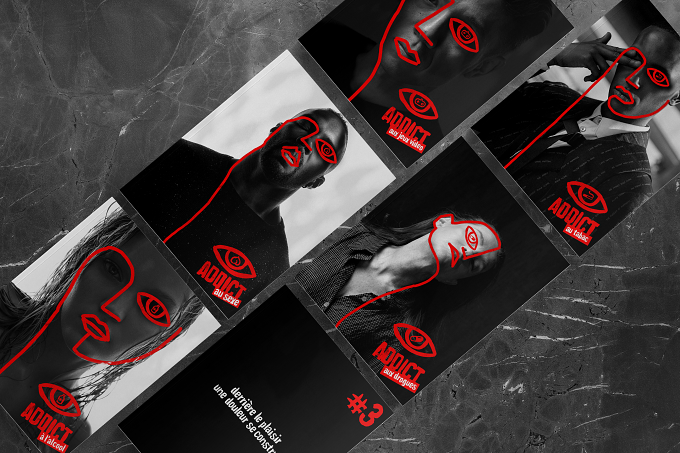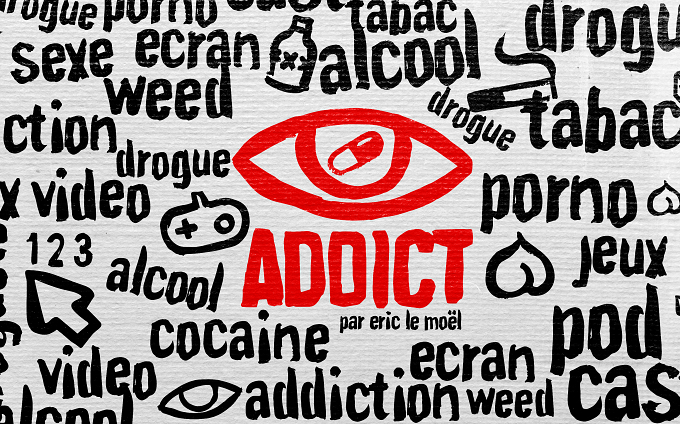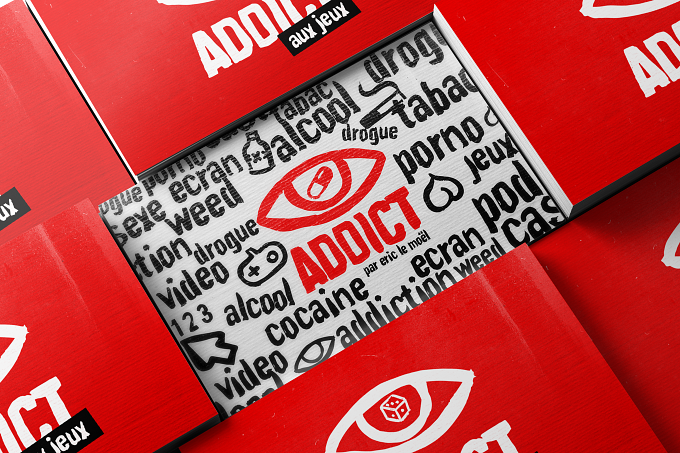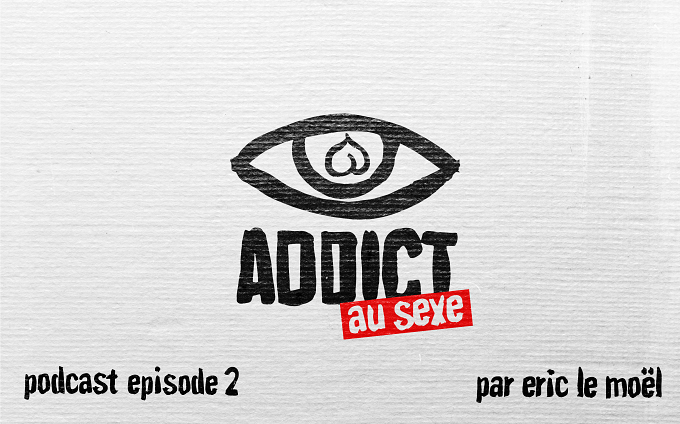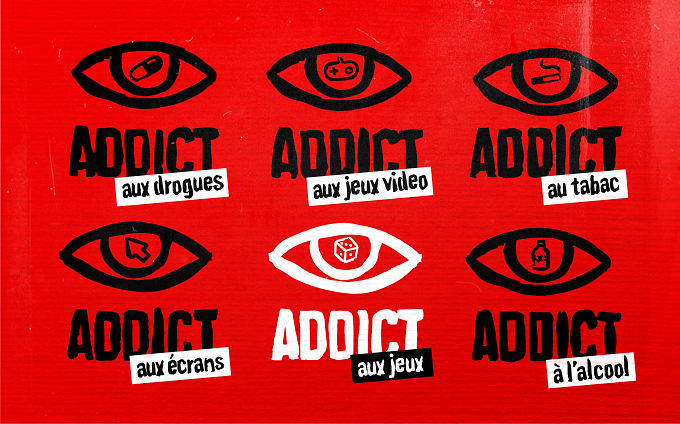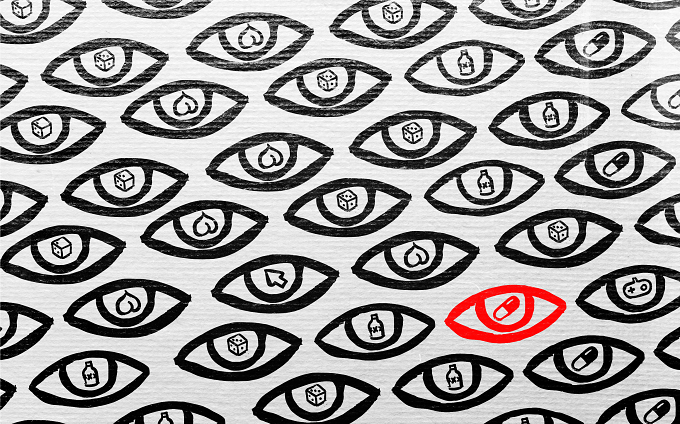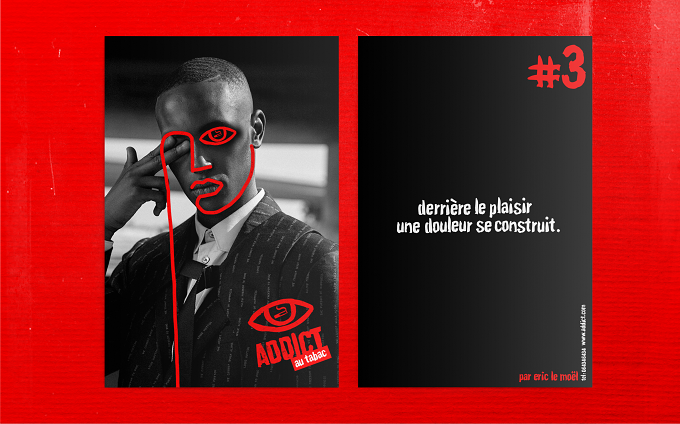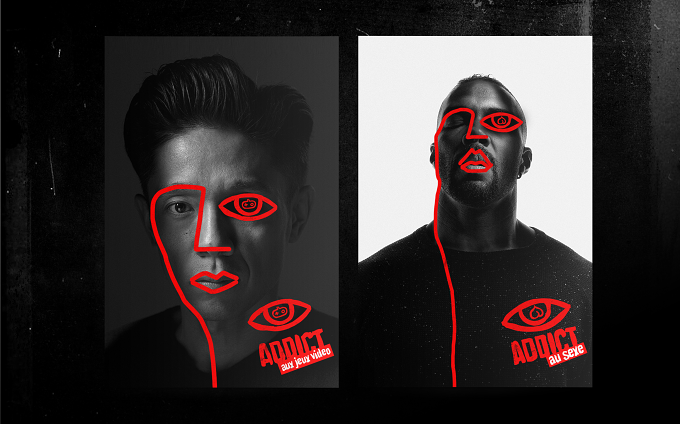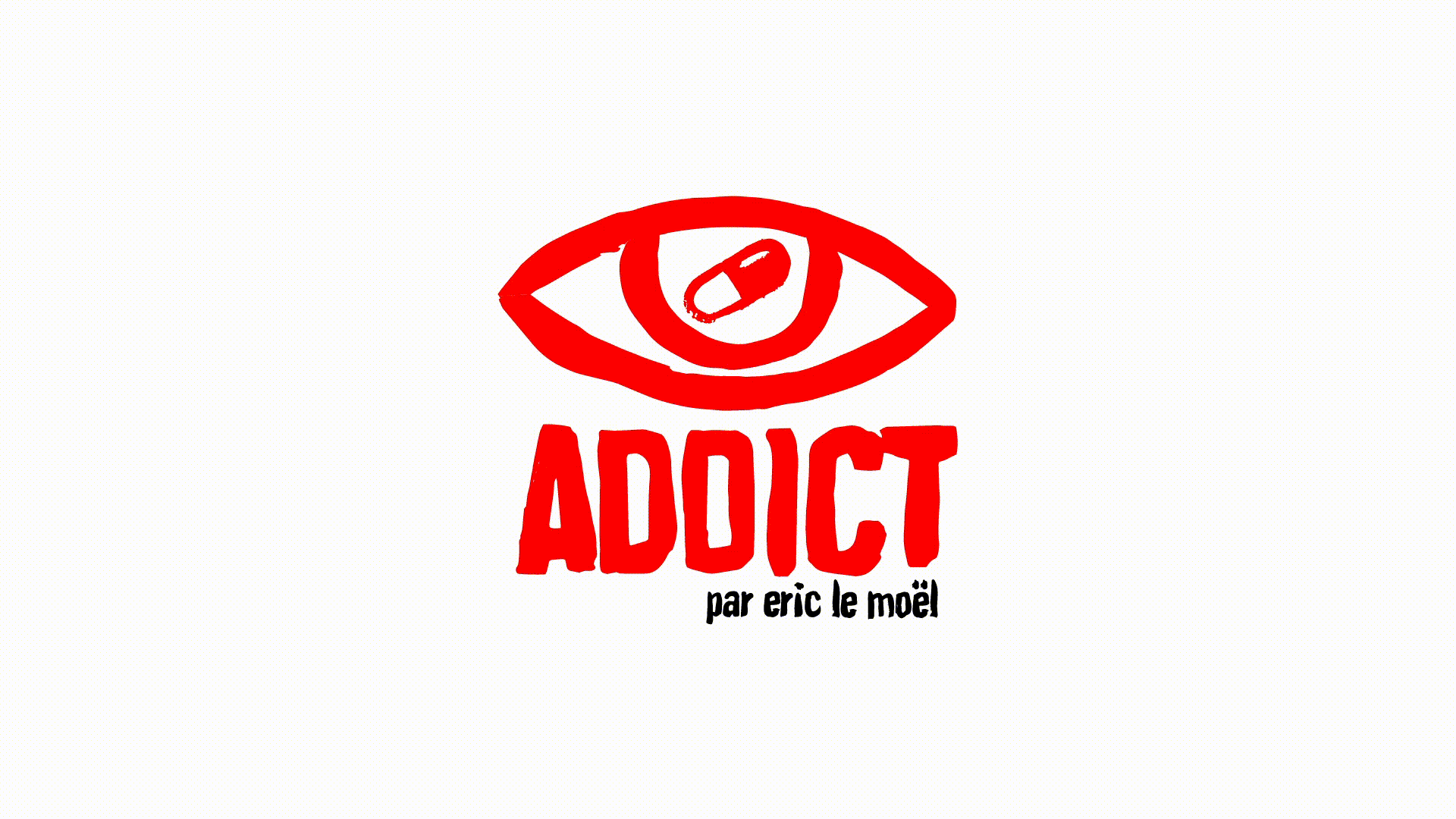
Addiction, the need or strong desire to do or to have something, or a very strong liking for something. The branding is focused on the eyes, because the desire transcend in the eyes. Everything was handmade, the illstration and motion too.